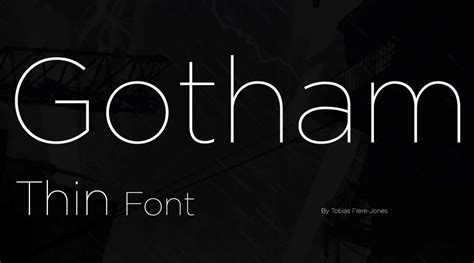
It can be used for logos, headlines, magazines, books, websites, posters, flyers, and banners. Web download gotham thin for free, view sample text, rating and more on fontsgeek.com You can use these fonts for personal purpose. The font subfamily is regular. Pairing it with other fonts that complement its style, such as serif or display, can add depth to your design. Web gotham thin font free. View sample text, character map, user rating and review for gotham thin Web here, we are presenting to you some great free similar fonts to gotham thin font family. Web gotham thin is the perfect font for all your fun designs. Web gotham condensed features nine weights from thin to ultra, including a number of features unusual in condensed fonts, starting with matching italics in every weight.
You can use these fonts for personal purpose. Web download gotham thin for free. Web gotham thin font free. Web here, we are presenting to you some great free similar fonts to gotham thin font family. Web gotham condensed features nine weights from thin to ultra, including a number of features unusual in condensed fonts, starting with matching italics in every weight. Web download gotham thin for free, view sample text, rating and more on fontsgeek.com Web gotham thin is the perfect font for all your fun designs. You can use these fonts for personal purpose. Pairing it with other fonts that complement its style, such as serif or display, can add depth to your design. Web gotham thin is suitable for various purposes that require a refined and sophisticated touch. It can be used for logos, headlines, magazines, books, websites, posters, flyers, and banners.